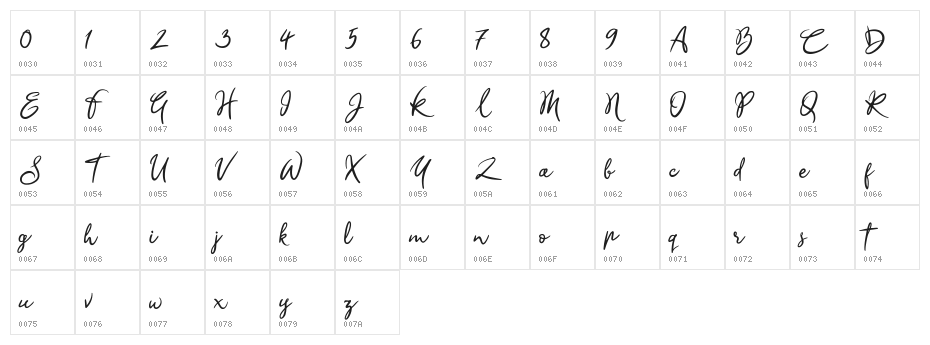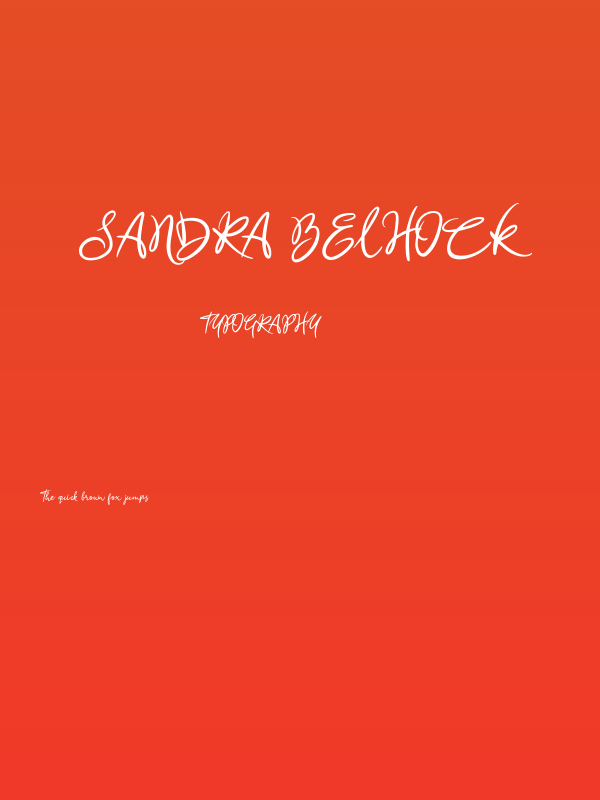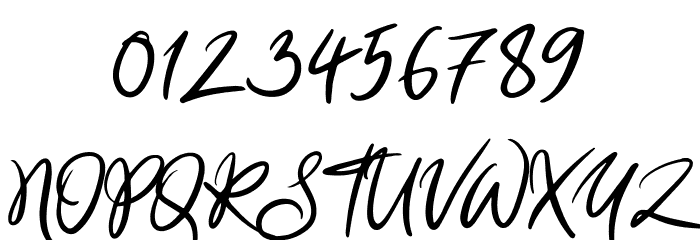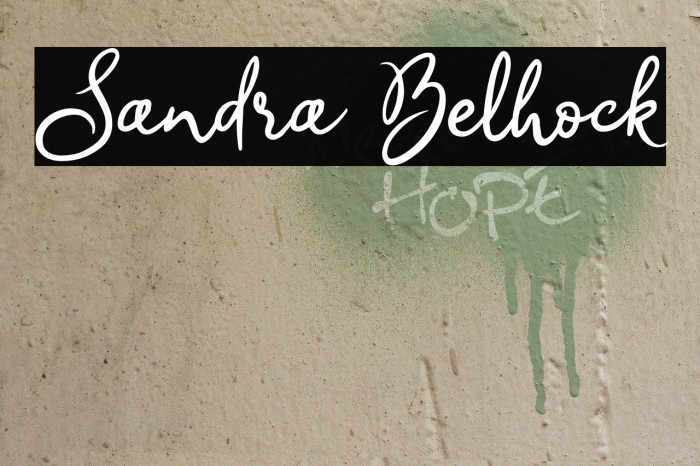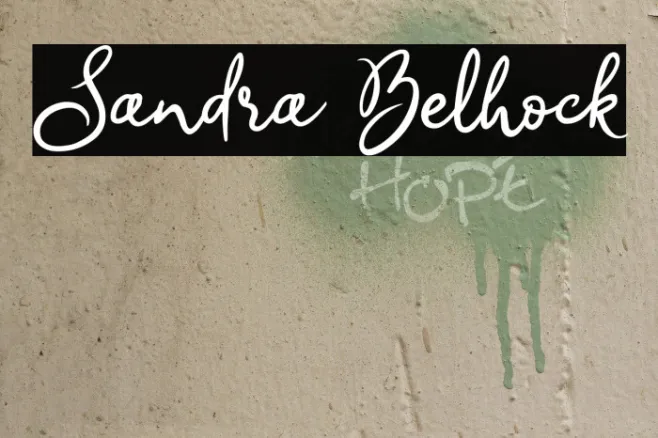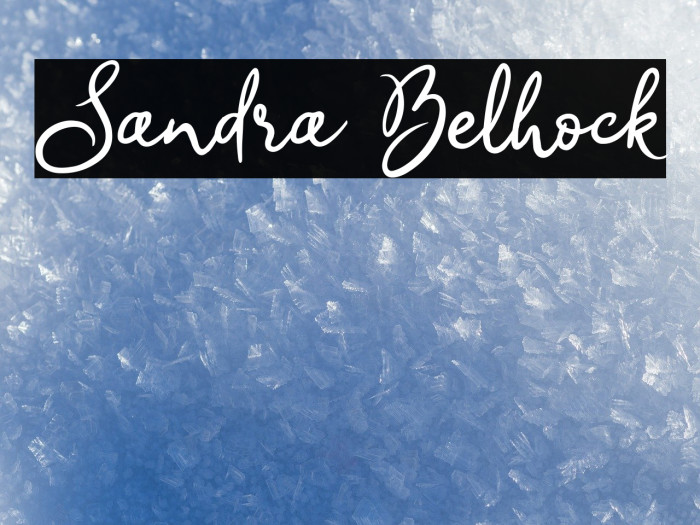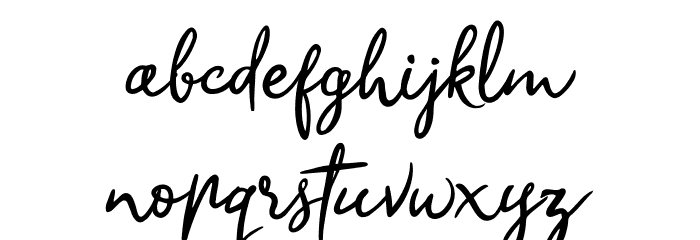
Sandra Belhock Font
Sandra Belhock Description
This font exudes a lively and dynamic energy with its flowing, cursive style. Each letter is crafted with a sense of movement, featuring elegant loops and curves that create a sense of fluidity. The uppercase letters are bold and expressive, while the lowercase letters maintain a consistent rhythm, adding a touch of sophistication. The numbers are equally stylish, complementing the overall aesthetic. This font is perfect for projects that require a personal touch, such as invitations, greeting cards, or branding materials. Its unique style makes it stand out, capturing attention with its artistic flair.
| Proposed Projects | Ideal for invitations, greeting cards, branding, and artistic projects. |